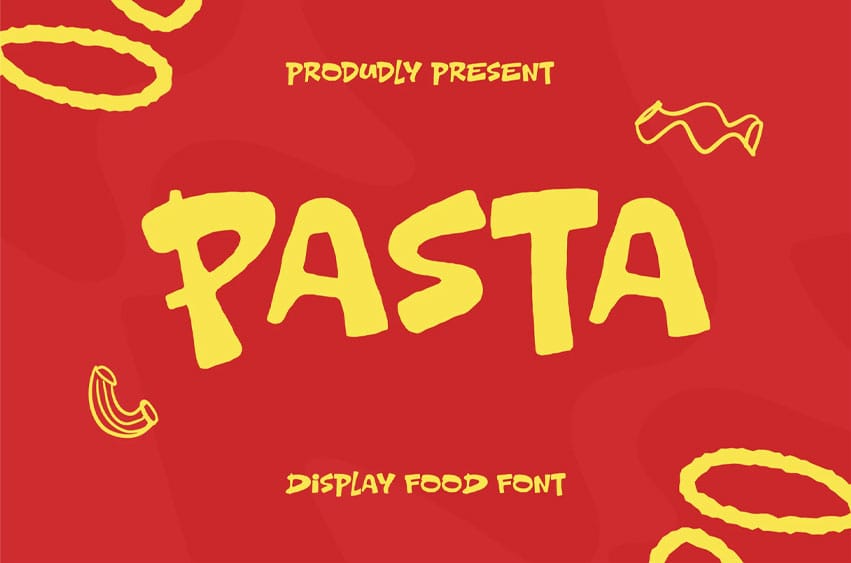
Pasta Font is a playful handmade display font inspired by the warm and cheerful atmosphere of homemade food and Italian cuisine.
With its organic shapes, rounded strokes, and slightly irregular character style, this font brings a natural and friendly personality to your design.
Perfect For:
- Restaurant branding
- Italian restaurant design
- Pasta shop branding
- Café menu design
- Food packaging
- Street food promotions
- Food festival posters
- Social media food ads
- Product labels
- Restaurant advertising